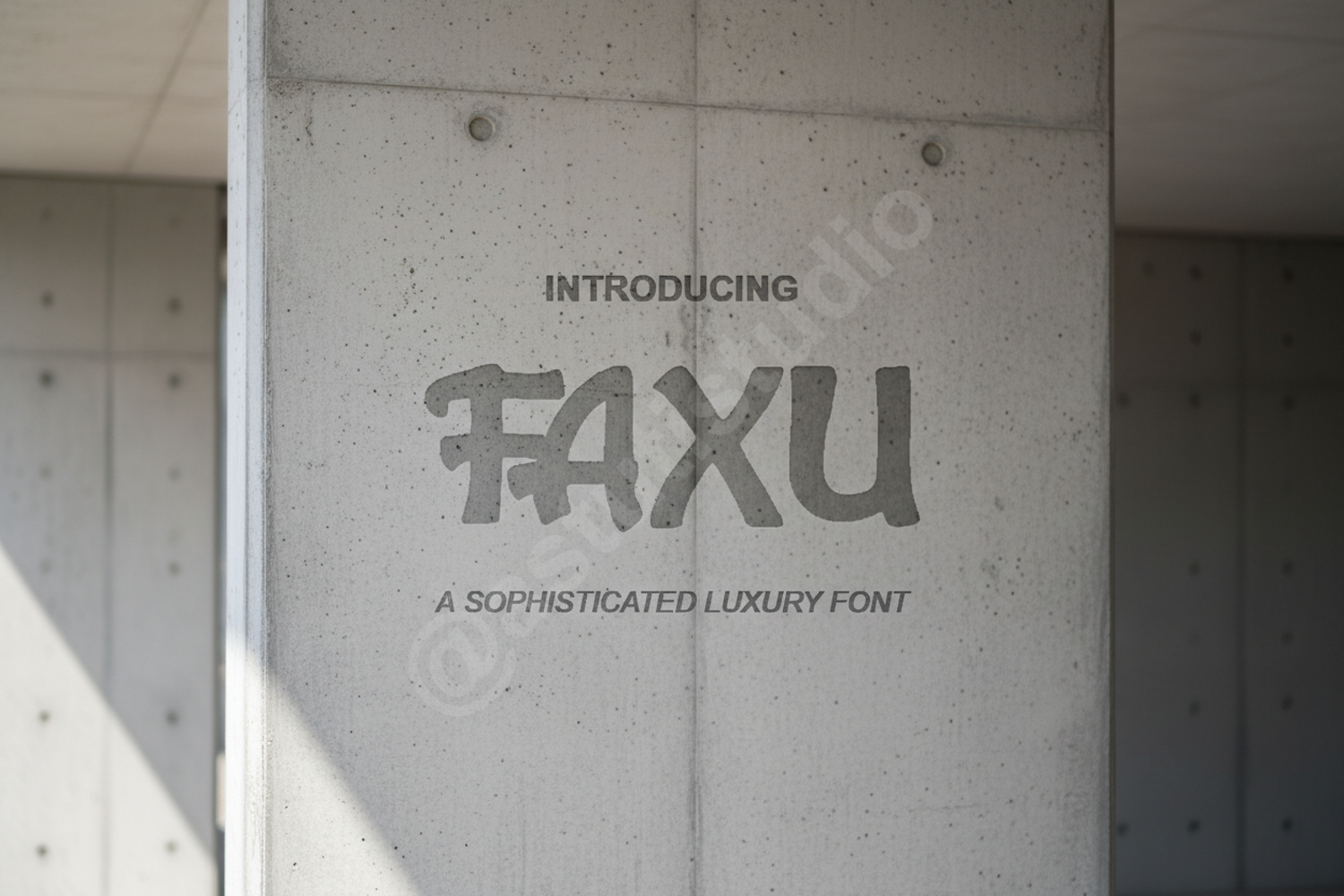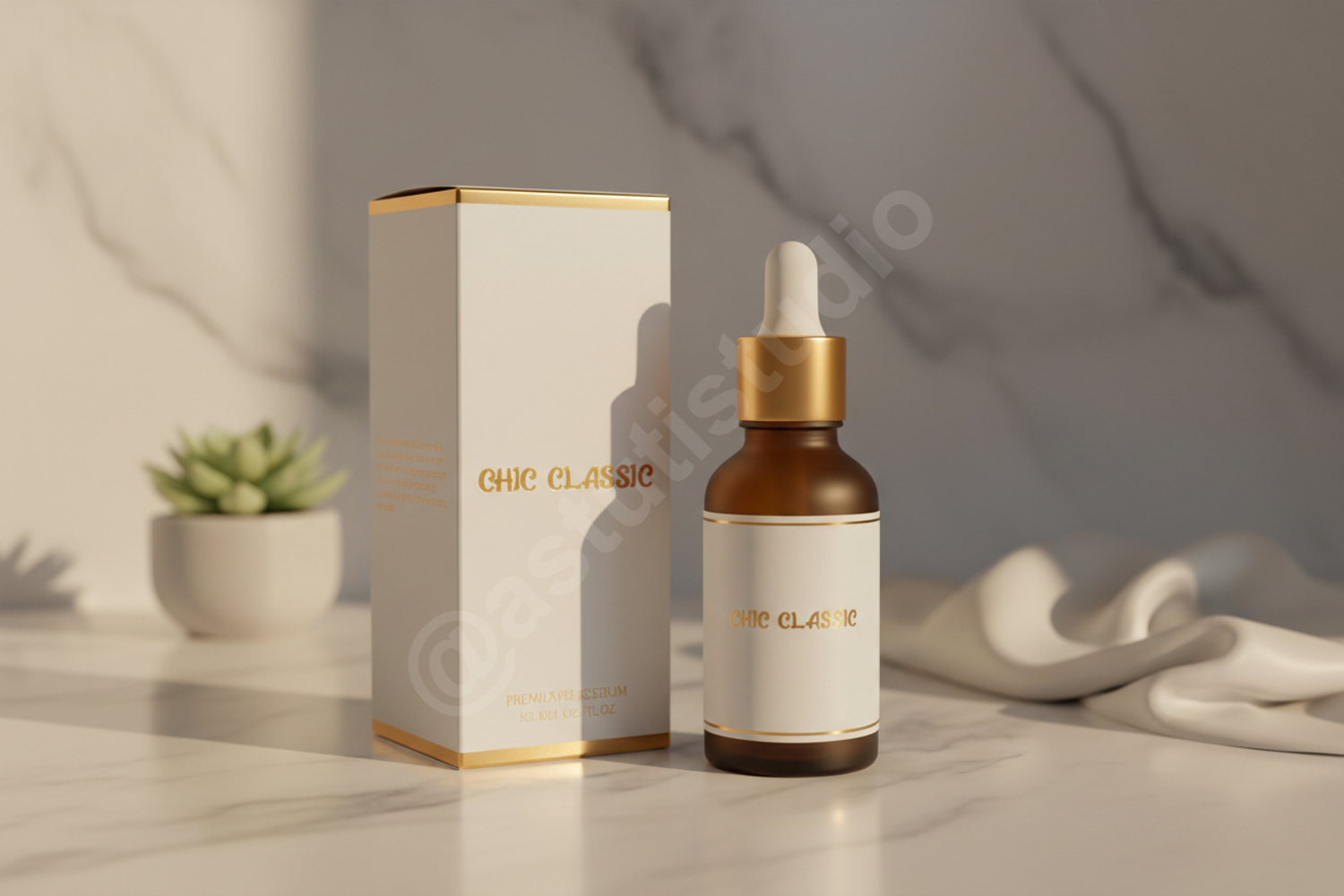
Faxu - Modern Minimalist Geometric Sans Serif
Faxu
Faxu is a masterfully crafted modern sans serif font that embodies sophistication and versatility. Designed with clean lines and a balanced geometric structure, Faxu offers a premium aesthetic that elevates any design project from ordinary to extraordinary. Its refined proportions ensure excellent legibility while maintaining a bold, contemporary presence.
- Full set of uppercase and lowercase letters
- Numbers and comprehensive punctuation
- Multilingual character support for global reach
- Professional Branding and Identity: Create memorable logos and corporate stationery.
- Modern Web Design: Ensure readability and style across digital platforms.
- High-End Packaging: Add a touch of luxury to product labels and boxes.
- Editorial Layouts: Perfect for magazine headers and sleek book covers.
- Social Media Graphics: Stand out with bold, clean typography on Instagram or Pinterest.